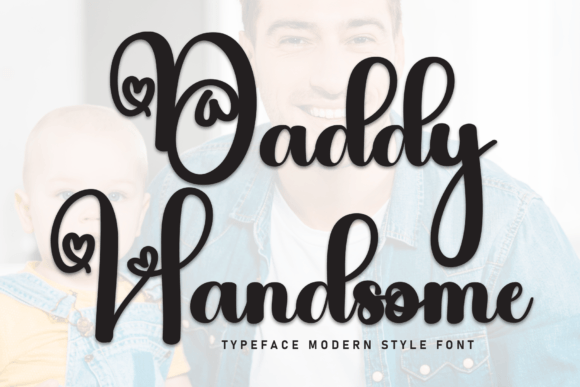
Discover the Timeless Allure of Daddy Handsome Font
Have you ever stumbled upon the perfect font while brainstorming a creative project, and suddenly, everything falls into place? For designers, this moment is a treasure, and it’s what makes the journey so rewarding. For me, that moment came when I discovered the Daddy Handsome Font – a delightful, handwritten style display font that instantly elevates any design project.
This charming font is more than just a pretty face; it’s a versatile tool for adding a warm, whimsical touch to your designs. Whether you’re crafting wedding invites, custom cards, or any other project that needs a fun and vivacious flourish, Daddy Handsome Font is the perfect companion. Its amicable nature makes it an invaluable asset for designers, allowing them to infuse their work with personality and character.
Daddy Handsome Font Key Features
- Font Style: A modern, elegant script font with a touch of sophistication.
- Unique Characteristics: The font features a unique, handwritten feel with subtle flair and swashes, adding a personal touch to designs.
Daddy Handsome Font Review
I recently had the chance to work with the “Daddy Handsome Font” and I’m sharing my honest thoughts on it.
- The font has a unique, eye-catching style that’s perfect for adding a touch of personality to your designs.
- The bold weight of the font makes it great for headlines and titles, and the script font is ideal for body text.
- The font is well-suited for creative projects, such as logos, invitations, and social media graphics.
- The font may not be the best choice for formal or professional projects, as its playful style may come across as unprofessional.
- The font lacks versatility, making it less suitable for a wide range of design applications.
- The font may be too distracting or overwhelming if used excessively.
Overall, the “Daddy Handsome Font” is a fun and quirky font that can add a lot of personality to your designs. While it may have some limitations, it’s perfect for creative projects where you want to make a statement. Just be sure to use it sparingly to avoid overwhelming your audience.
The Daddy Handsome Font is ideal for:
– Wedding invitations
– Baby announcements
– Personalized gifts
– Pair the Daddy Handsome Font with other elegant fonts for a sophisticated design.
– Use it to add a touch of whimsy and personality to your designs.
Alternatives to Daddy Handsome Font
Daddy Handsome Font is a unique, handwritten font with a vintage feel. However, for designers looking for alternatives, here are a few options to consider.
Montebello Font
Montebello Font is a luxurious, elegant font with a sophisticated feel. It is ideal for use in high-end branding, invitations, and wedding designs. Montebello Font is similar to Daddy Handsome Font in its elegant and refined feel, but it has a more polished and refined appearance. It is also more versatile and can be used in a wider range of applications.
Great Vibes Font is a beautiful, handwritten font with a relaxed and casual feel. It is perfect for use in creative projects, such as art prints, posters, and social media graphics. Great Vibes Font has a similar laid-back feel to Daddy Handsome Font, but it is more modern and trendy. It is also more suitable for use in digital media.
Carolyna Pro Font is a modern, elegant font with a touch of sophistication. It is ideal for use in high-end branding, magazines, and editorial designs. Carolyna Pro Font has a similar refined feel to Daddy Handsome Font, but it is more contemporary and versatile. It is also more suitable for use in a wide range of applications.